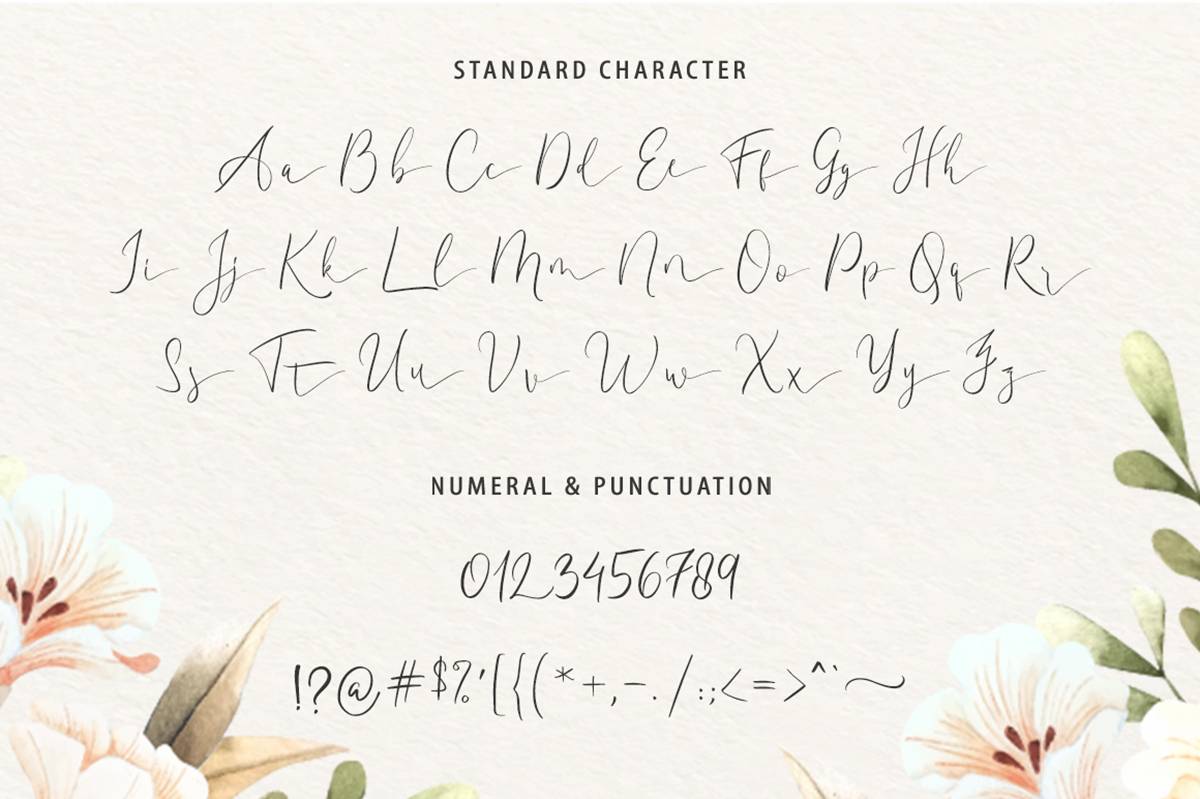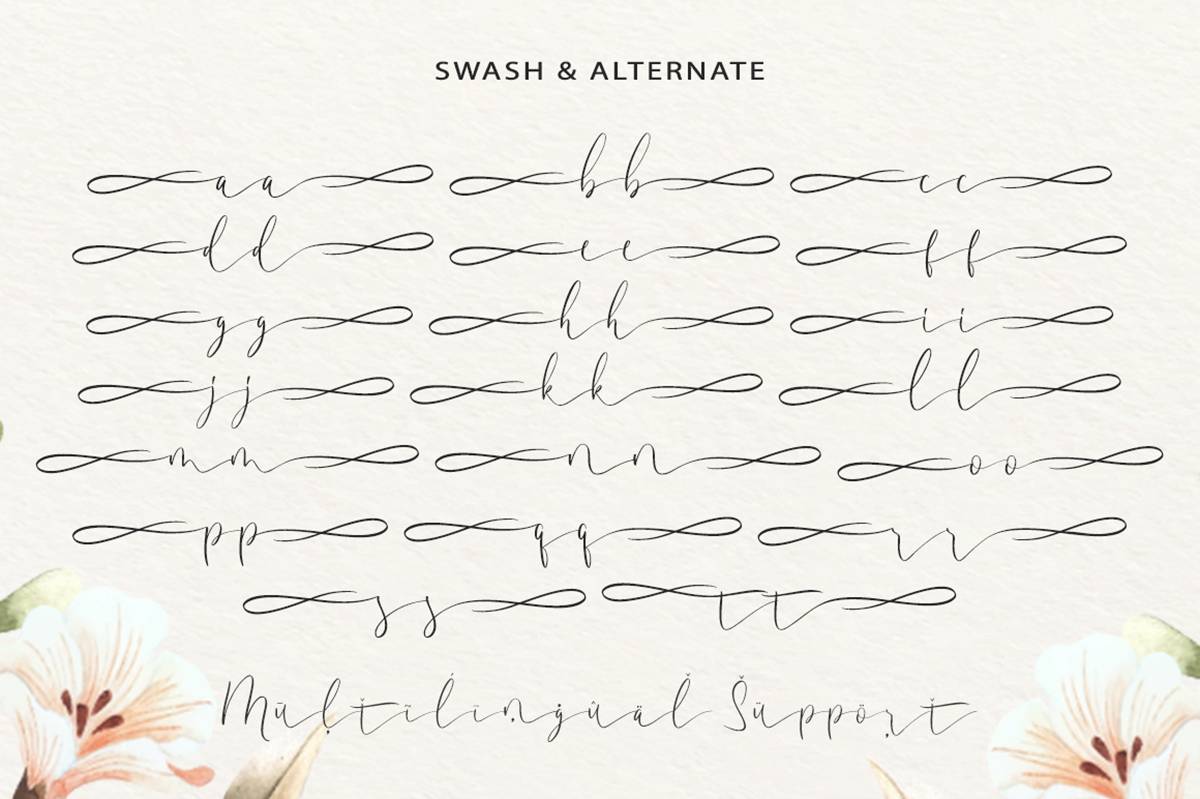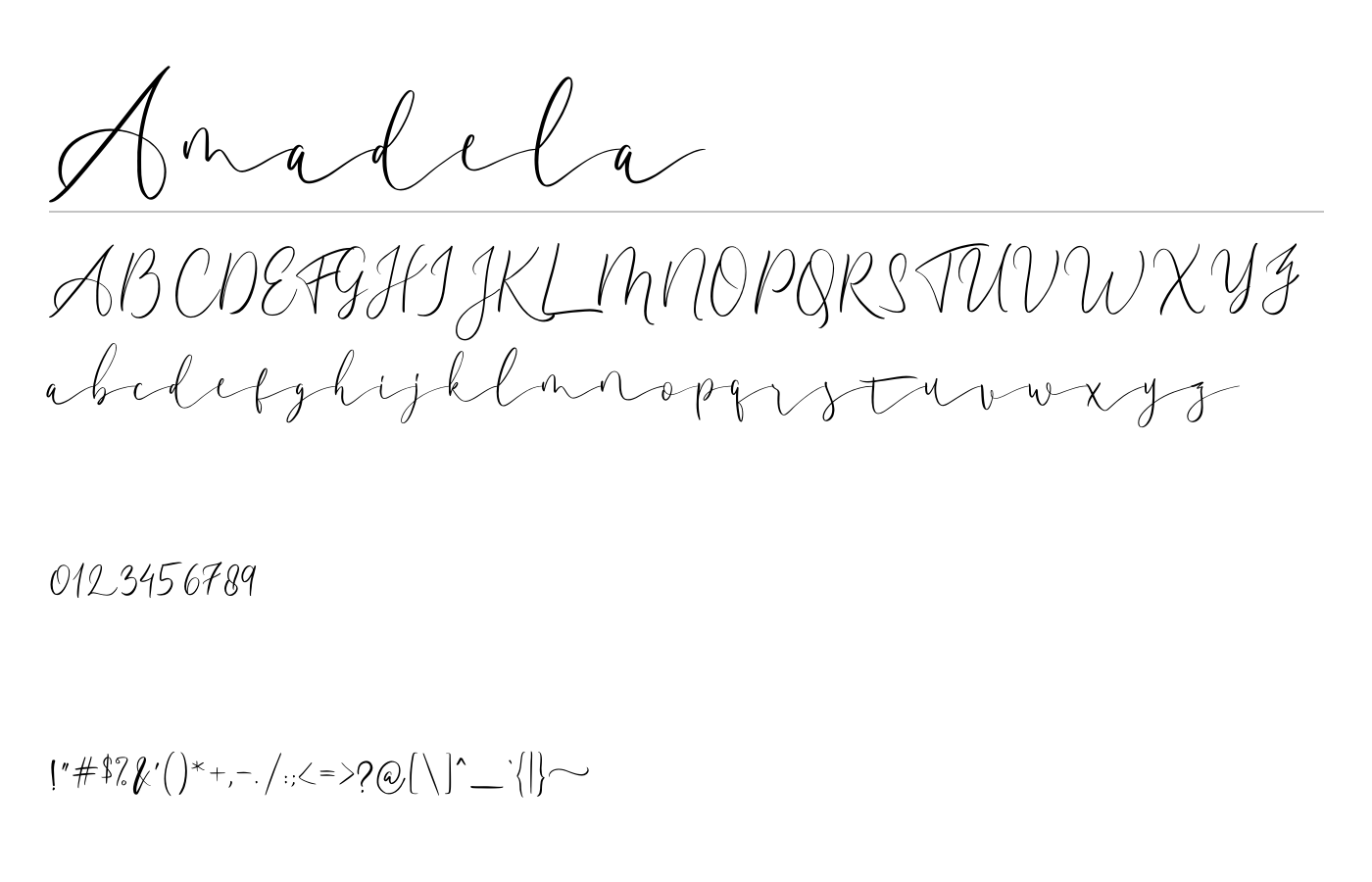
Amadela Script is an elegant, delicate handwritten font featuring thin, flowing strokes that create a refined and graceful look. Its tall, slender letterforms with smooth curves and unique, artistic flourishes make it perfect for upscale branding, wedding invitations, and stylish logos where a personal, sophisticated touch is desired. This font works best in large sizes for headlines or decorative use, adding an air of luxury and charm to any design.
Amadela Script Font
About Amadela Script Font